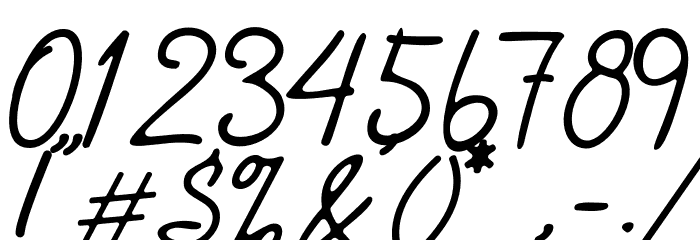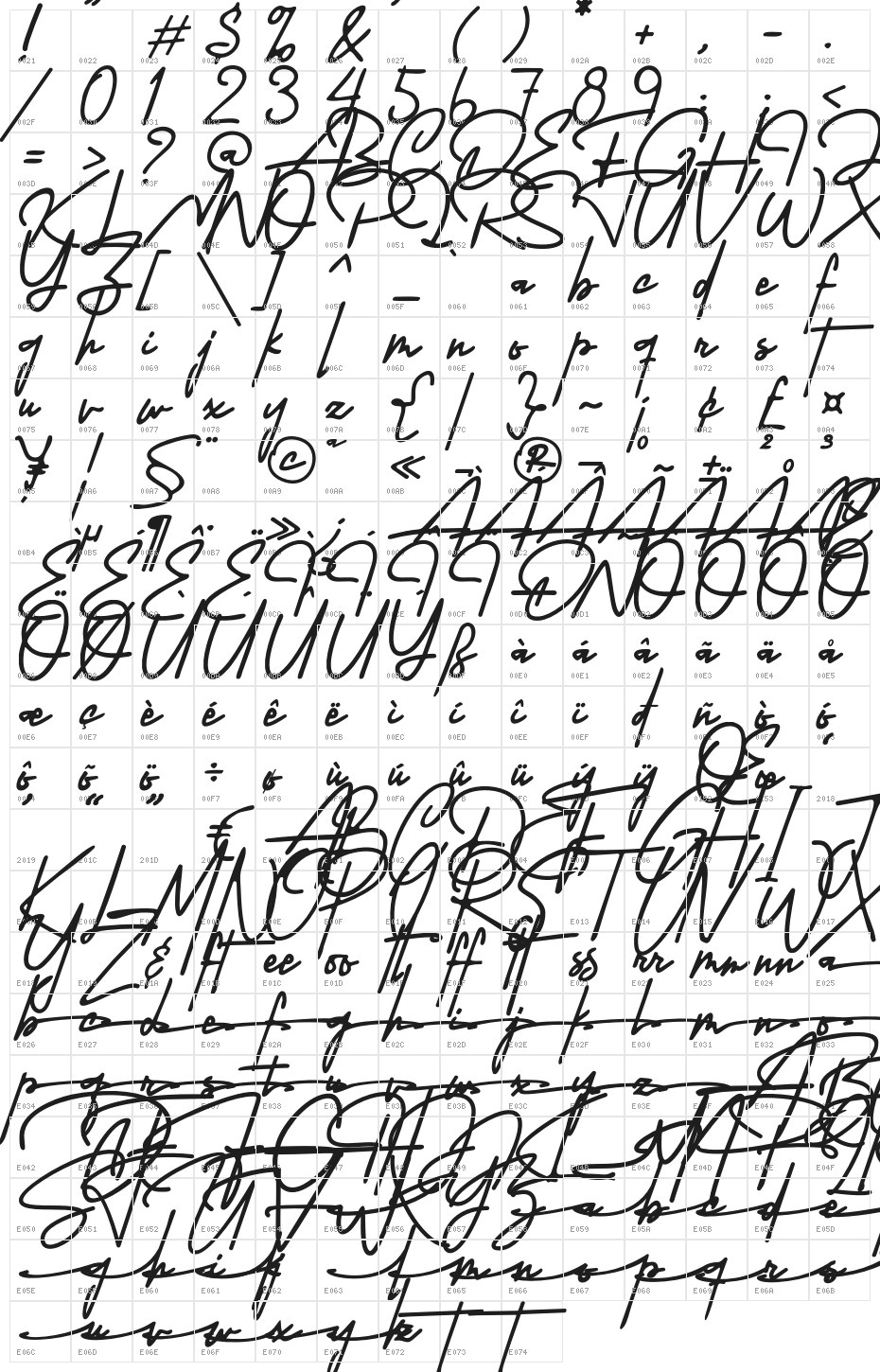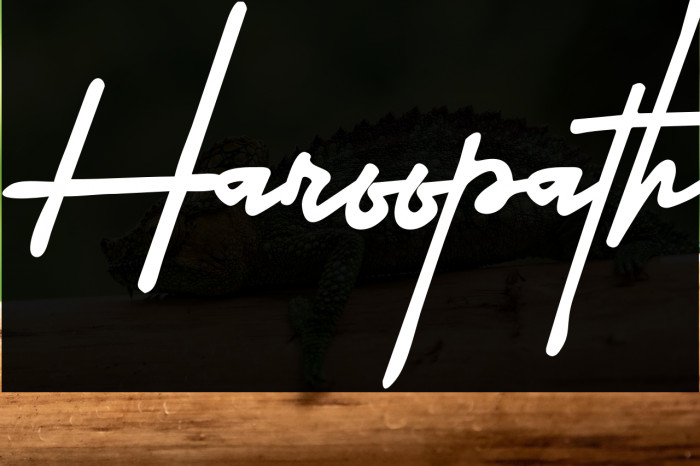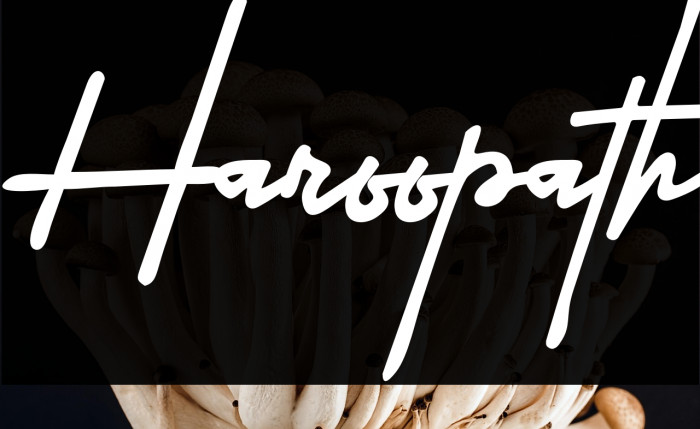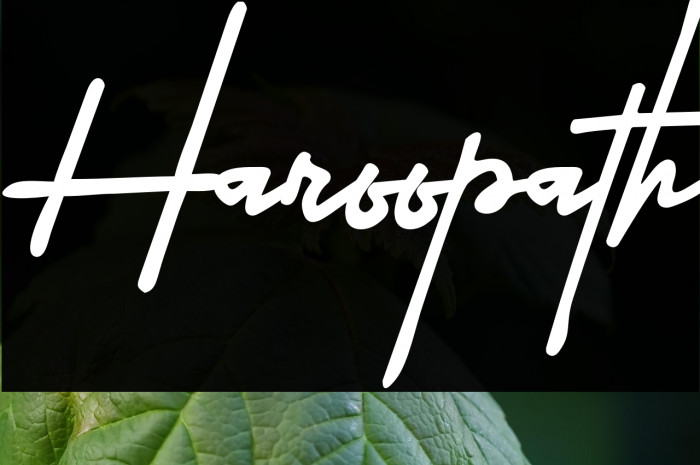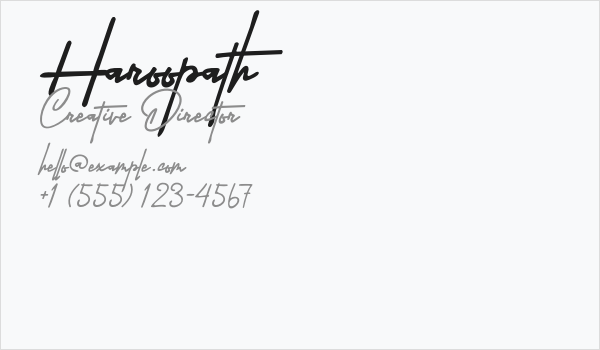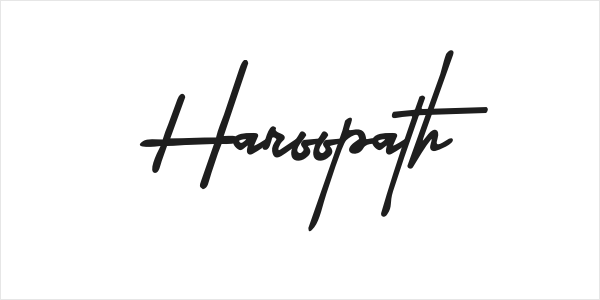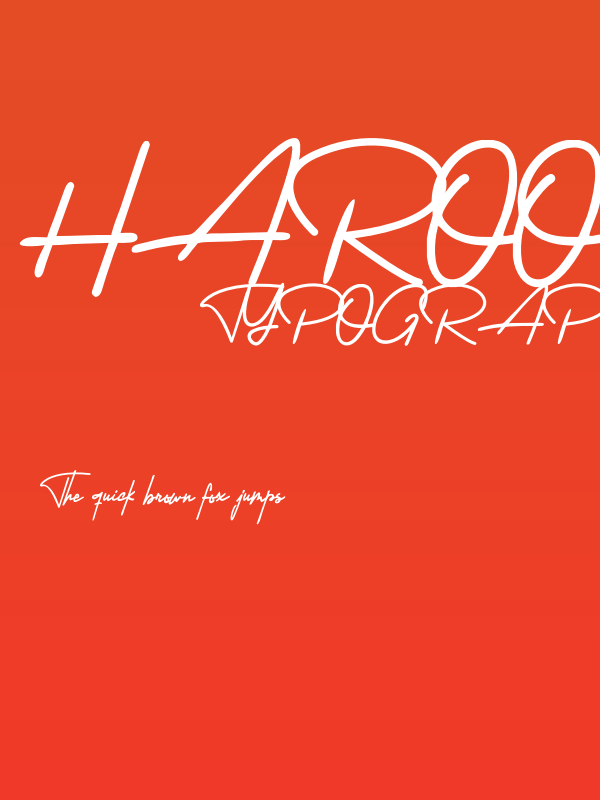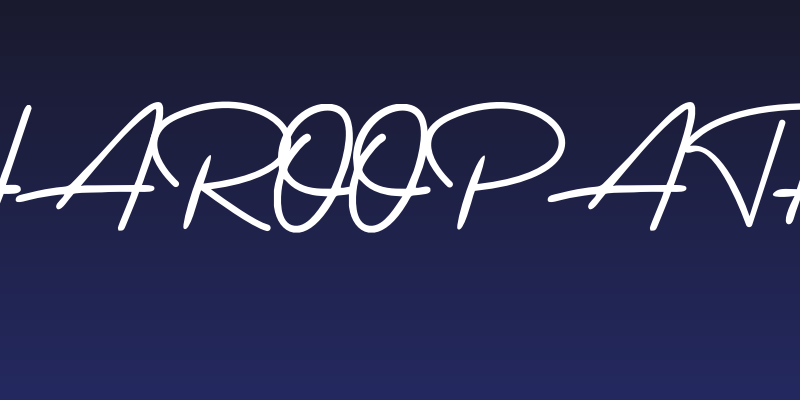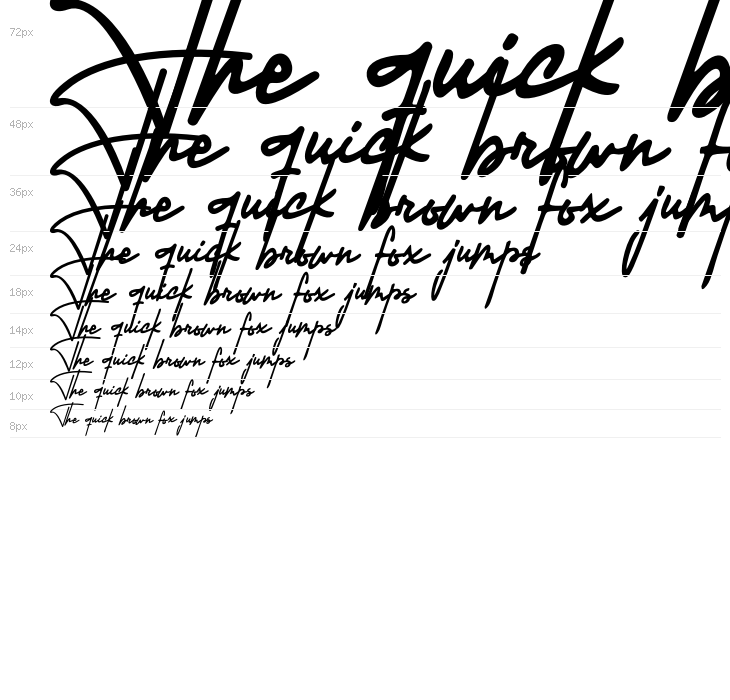
Haroopath Font
Haroopath Description
This font exhibits a dynamic and expressive handwritten style, characterized by its fluid and interconnected letterforms. The uppercase letters maintain a consistent height with a slight slant, giving them a lively appearance. The lowercase letters are more varied in height and feature elongated ascenders and descenders, enhancing the script's elegance. Numbers are bold and slightly tilted, matching the overall energetic feel. Special characters are creatively integrated, maintaining the script's cohesive look. The font's playful yet sophisticated nature makes it suitable for projects that require a personal touch.
| Proposed Projects | Ideal for wedding invitations, personal branding, greeting cards, and artistic posters. |